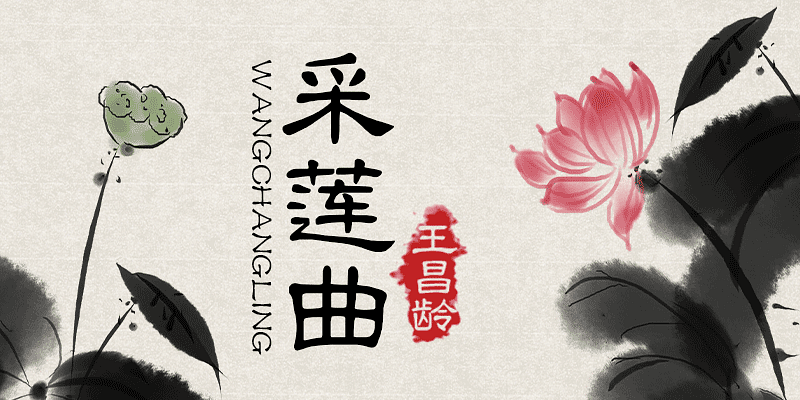
HelloFont ID Xiao Li Shu Font Free Download is an elegant, hand-written style font designed to bring a unique and artistic touch to your projects. Featuring flowing strokes and a natural handwritten look, this font is perfect for projects such as invitations, logos, branding, packaging, and any creative work that requires a personal and stylish touch.